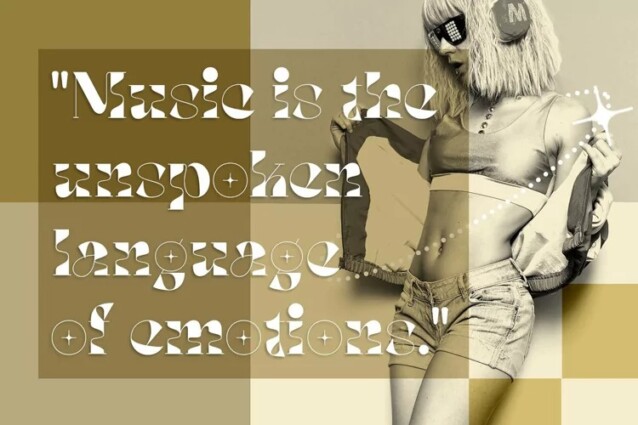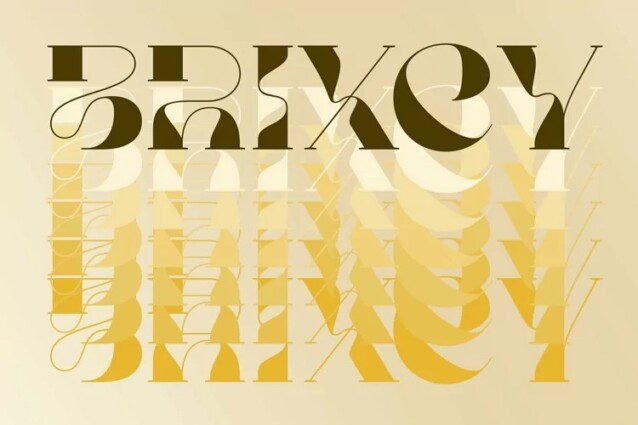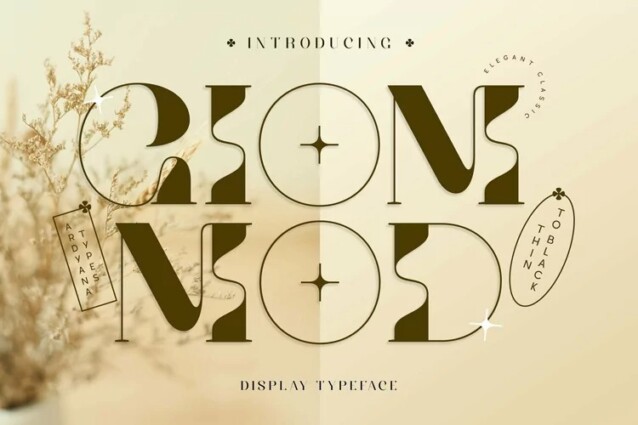
Giom Mod Font
Giom Mod Font is a font family that has a unique character and curved shape. This font offers nine different thickness options, ranging from Thin to Black, providing a wide range of choices for various applications. Each thickness of Giom Mod has its own unique characteristics, allowing you to select the one that best suits your design aesthetics. For example, Thin may be suitable for light and elegant designs, while Black can be used for more dramatic and bold appearances.
Furthermore, Giom Mod comes equipped with various OpenType features. These include features such as ligatures, which allow specific characters to combine beautifully, and alternative letterforms that provide more design options. With these features, you can create more engaging and unique text elements in your designs.